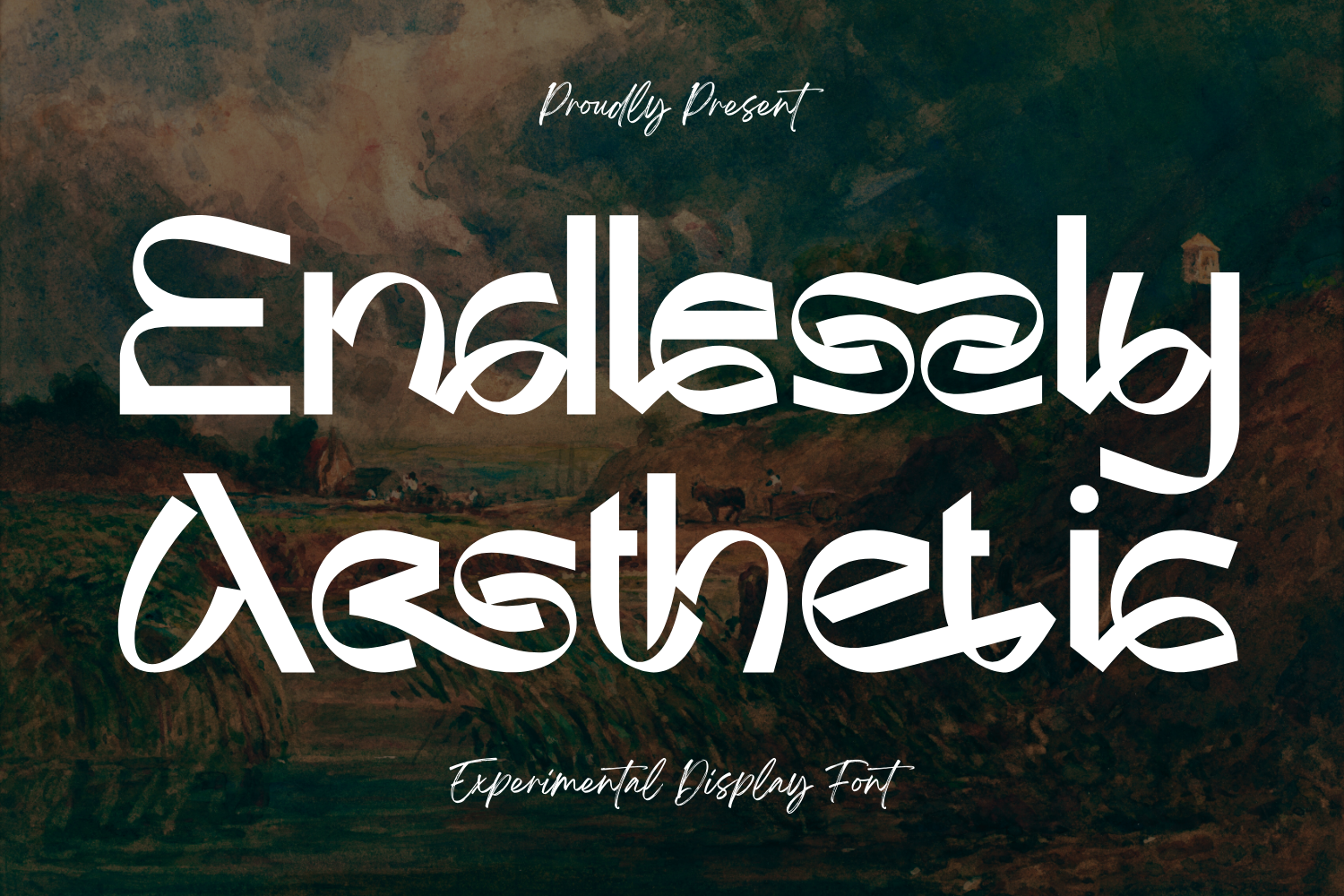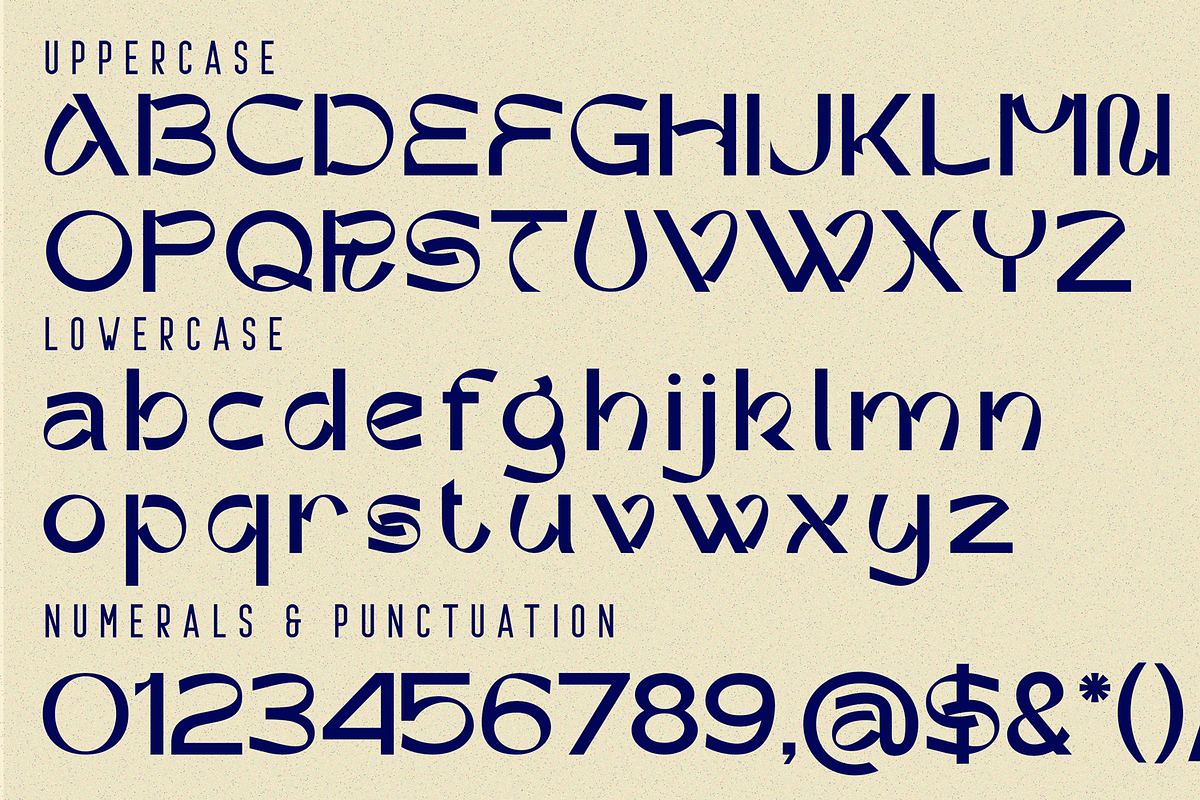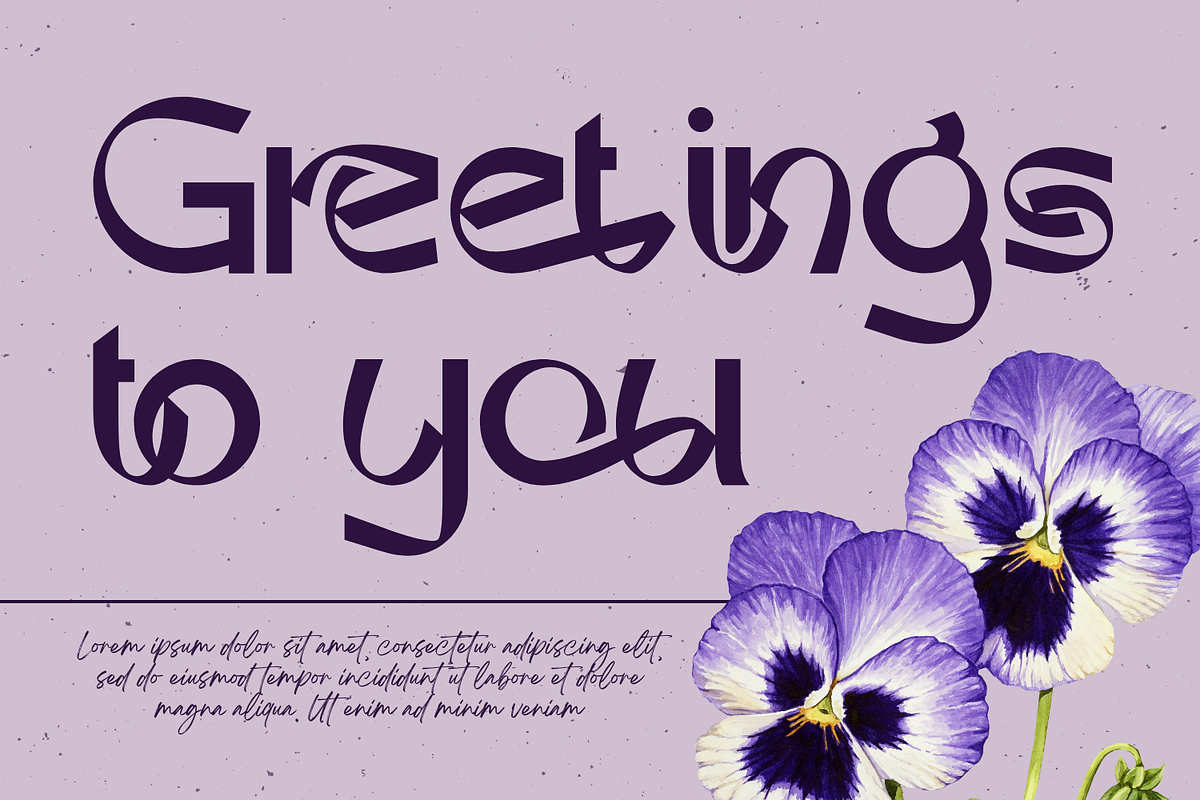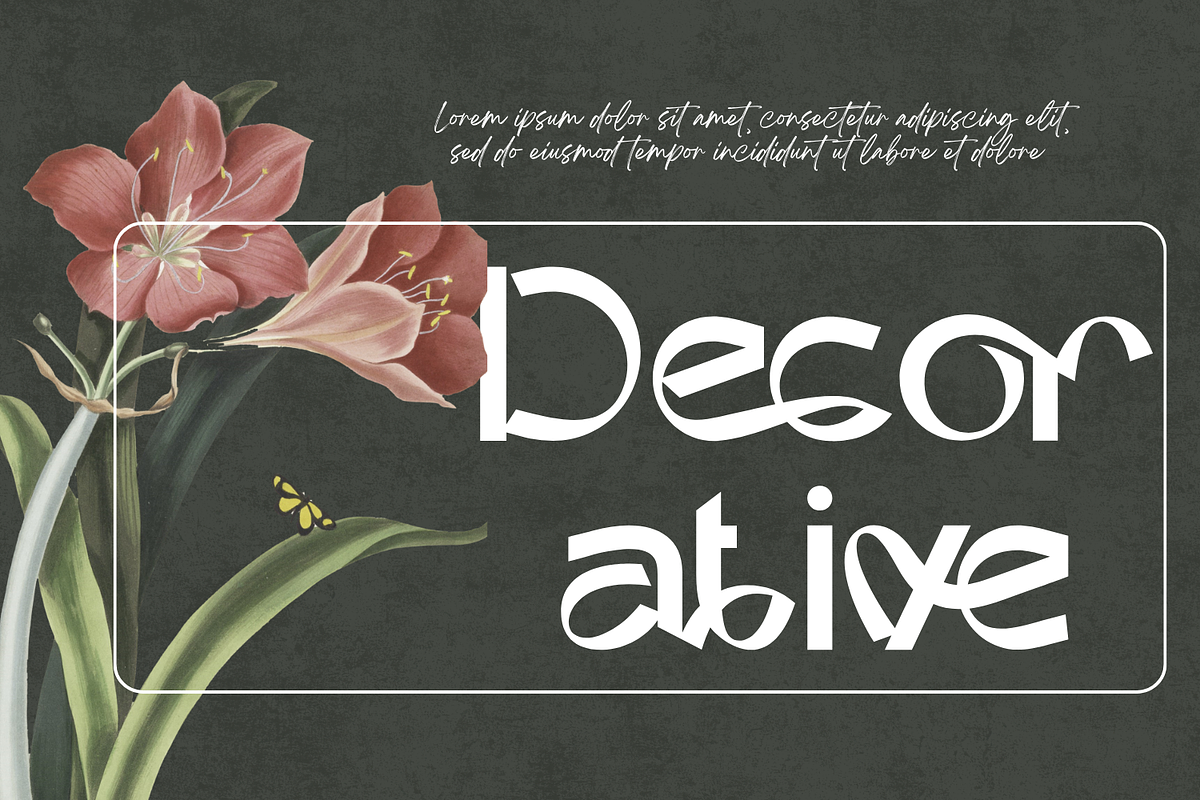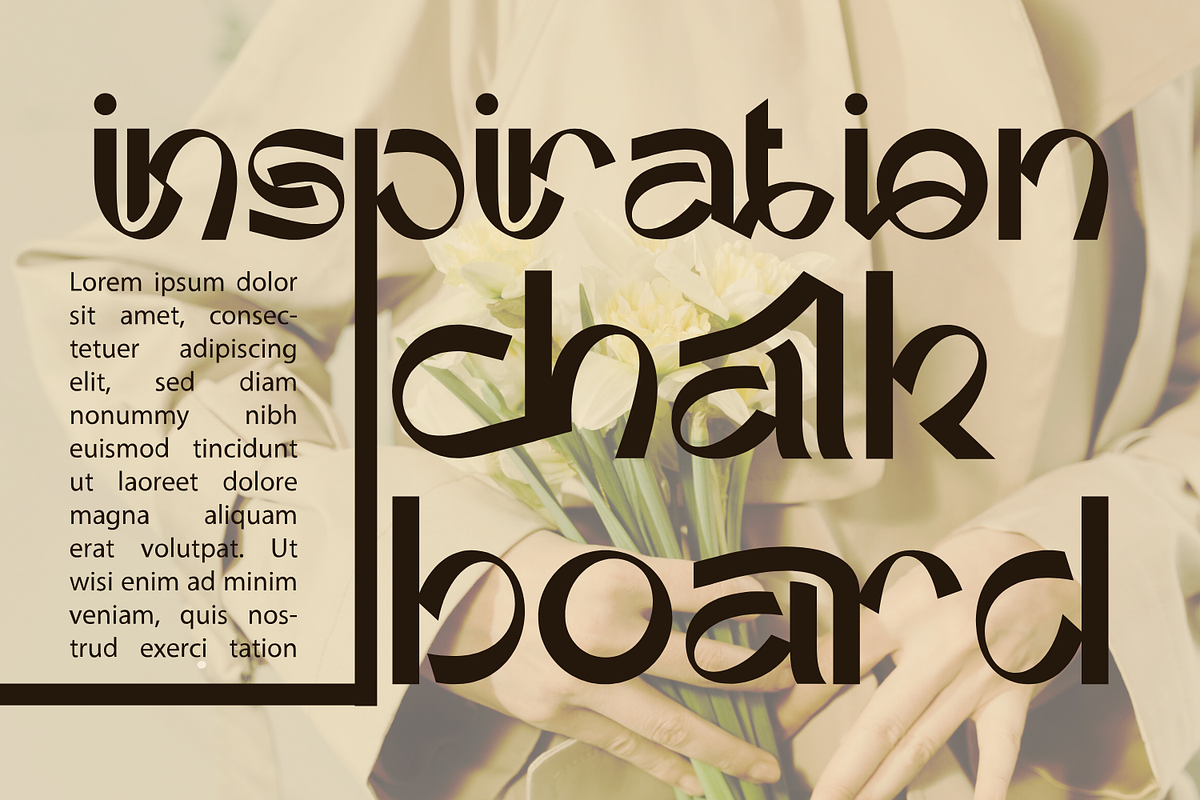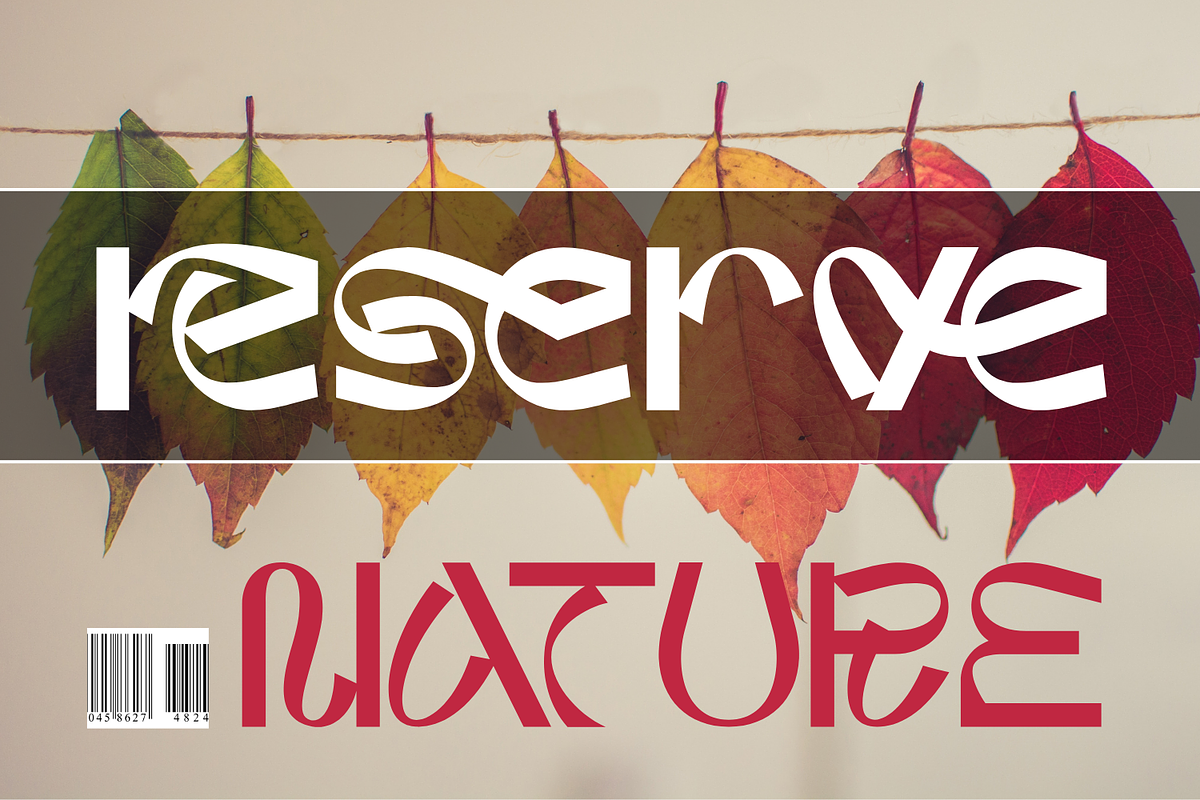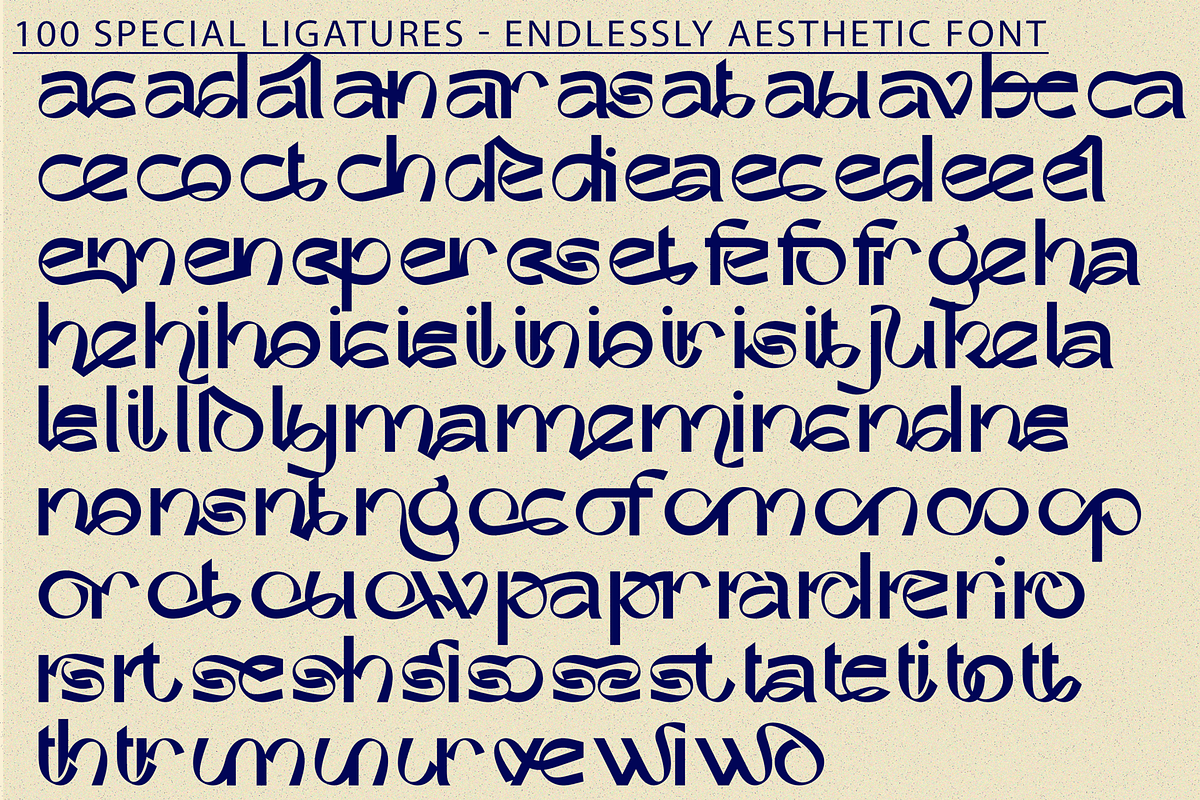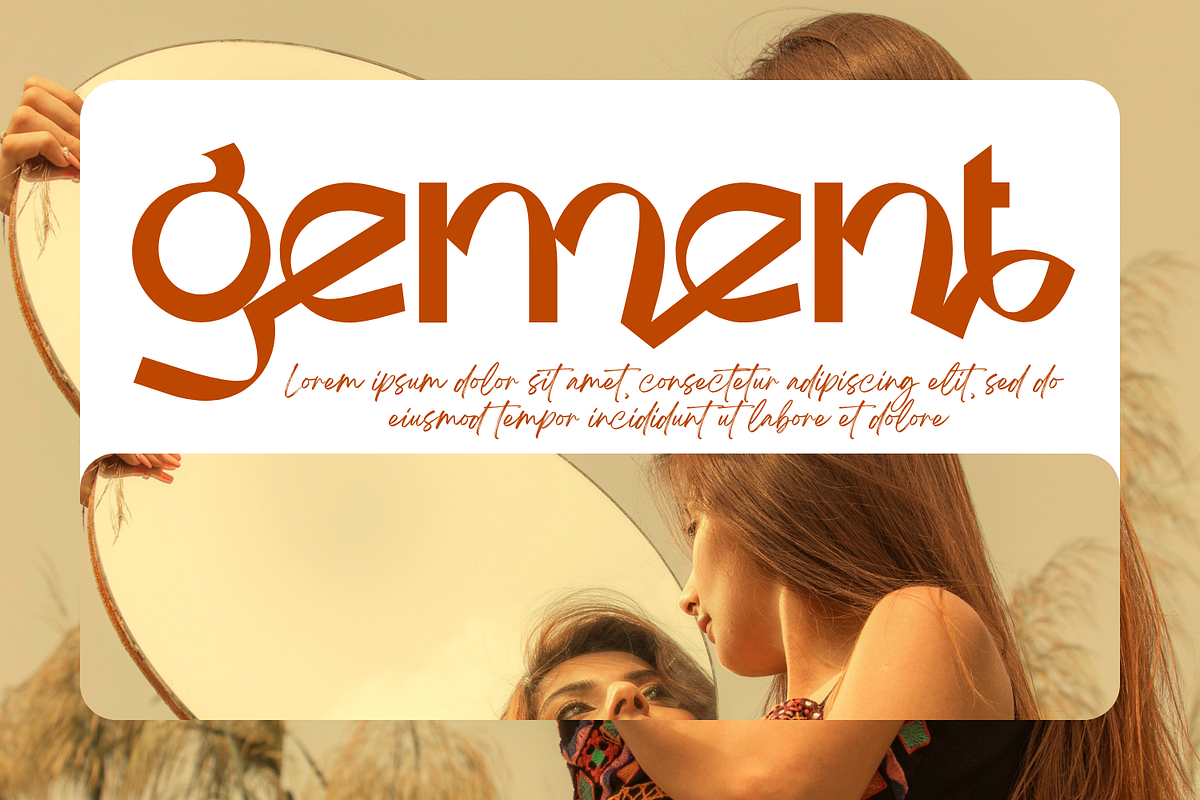
Endlessly Aesthetic - Unique Font
Endlessly Aesthetic - Unique Font - A Unique Abstract Decorative Font, a bold experimental decorative display font that merges geometric precision with artistic abstraction. Its letterforms feature a striking interplay of curves, sharp angles, and irregular flows, creating a futuristic yet handcrafted aesthetic. Perfect for editorial headlines, music album covers, experimental branding, fashion campaigns, and creative posters, this font is designed for those who dare to stand out with unconventional typography.
- Uppercase & Lowercase Letters
- ~100 Special Ligatures
- Accented Characters for multilingual support
About 100 ligatures combined with Stylistic Alternates Font:
ac ad al an ar as at au av be ca ce ch co ct de di ea ec ed ee el em en ep er es et fe fo fr ge ha he hi ho ie ic il in io ir is it ju ke la le li ll lo ly ma me mi nc nd ne ng no nt ns oc of om on oo op or ot ou ow pa pr ra rd re ri ro rs rt se sh si so ss st ta te th ti to tr tt um un ur ve wi wo